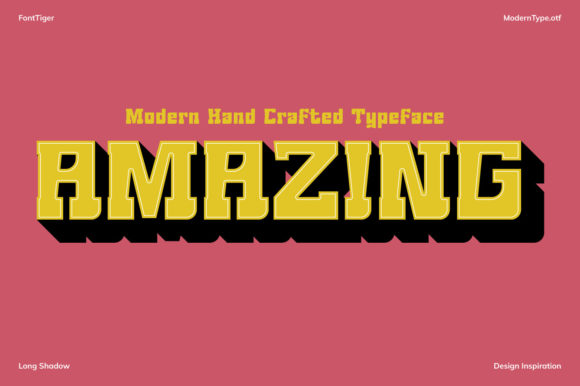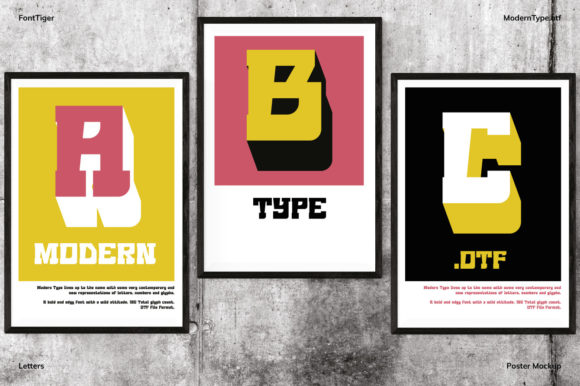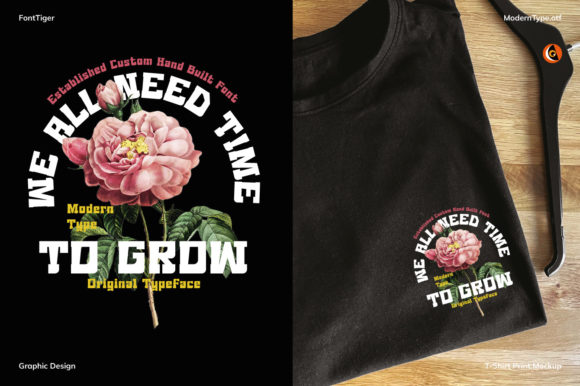
Introduction to Modern Type Font
Have you ever found yourself stuck in a creative rut, unable to bring your vision to life? It’s a familiar feeling for many designers, but it doesn’t have to be. Sometimes, all it takes is a bold and edgy font to shake things up and give your project the boost it needs. That’s where the Modern Type Font comes in – a game-changing design resource that’s about to revolutionize the way you approach your next creative project.
With its unique and contemporary style, the Modern Type Font is the perfect addition to any high-quality design. Whether you’re working on a project with a transparent background or creating a bold, eye-catching visual, this font has got you covered. And the best part? It’s available for free download, making it an invaluable resource for designers of all levels.
Key Features of Modern Type Font
- High-quality vector graphics with a transparent background, making it ideal for creative projects that require a clean and modern design.
- Comes in 7 font styles, each with its unique characteristics and nuances, allowing designers to experiment and find the perfect fit for their project.
- Designed with a high level of detail and precision, ensuring a crisp and clear display at various resolutions and sizes, including 300 DPI and 72 DPI.
- Supports a wide range of languages, including Latin, Cyrillic, and Greek, making it a versatile font for global creative projects.
- Perfect for digital and print design, including logos, branding materials, and marketing collateral, thanks to its modern and sophisticated look.
Honest Review: Modern Type Font
I recently stumbled upon the Modern Type Font, and I must say it’s been a game-changer for my creative projects. The font’s high quality and versatility have made it a staple in my design arsenal.
- Transparency options: The ability to adjust the transparency of the font’s background has been a lifesaver for projects where I need to layer elements.
- Design resource: The Modern Type Font has become one of my go-to design resources, and I’ve been recommending it to my fellow designers.
What doesn’t:
- ⚠️ Limited customization options: While the font is versatile, I wish there were more options for customizing its appearance.
- ⚠️ Not ideal for complex designs: The font’s simplicity can sometimes make it difficult to use in complex design projects.
Overall, the Modern Type Font has been a valuable addition to my design toolkit. While it has some limitations, its high quality and free availability make it a must-have for any designer working on a creative project.
Modern Type Font
Modern Type Font can also be used in PowerPoint and Word for a professional-looking presentation or document. Select the font and adjust the settings to fit your design needs. Consider using a free download to explore different font variations and find the perfect fit for your project. When working on a design resource, take advantage of the transparent background option to make your text stand out.
Tips for Getting the Most Out of Modern Type Font
Experiment with different font sizes and styles to create visual interest in your design. Use the font in conjunction with other design elements, such as images and graphics, to create a cohesive look. Don’t be afraid to try out different combinations to find the perfect fit for your creative project.
Modern Type Font is ideal for use in creative projects, such as brochures, flyers, and posters. It can also be used in professional settings, such as presentations and documents, to add a touch of style and sophistication.